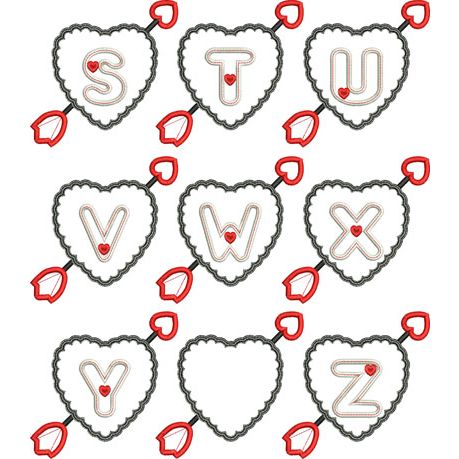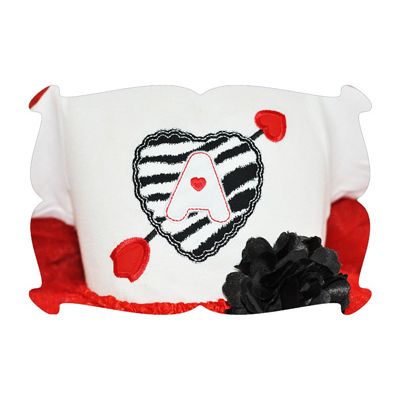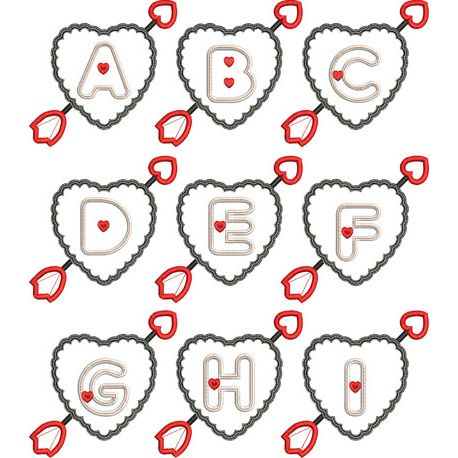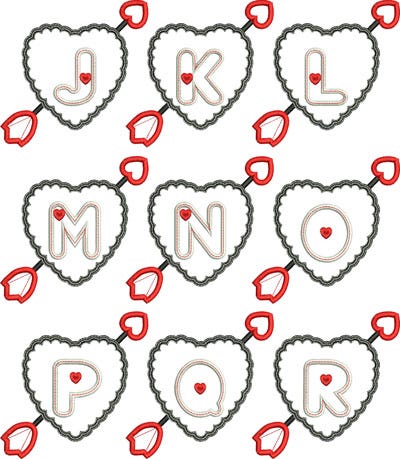
Heart and Arrow Satin Stitch Applique Monogram Embroidery Font
Heart and Arrow Applique Font
Shot through the heart, and love's to blame!
Included are capital letters A thru Z, embedded onto the design for you.